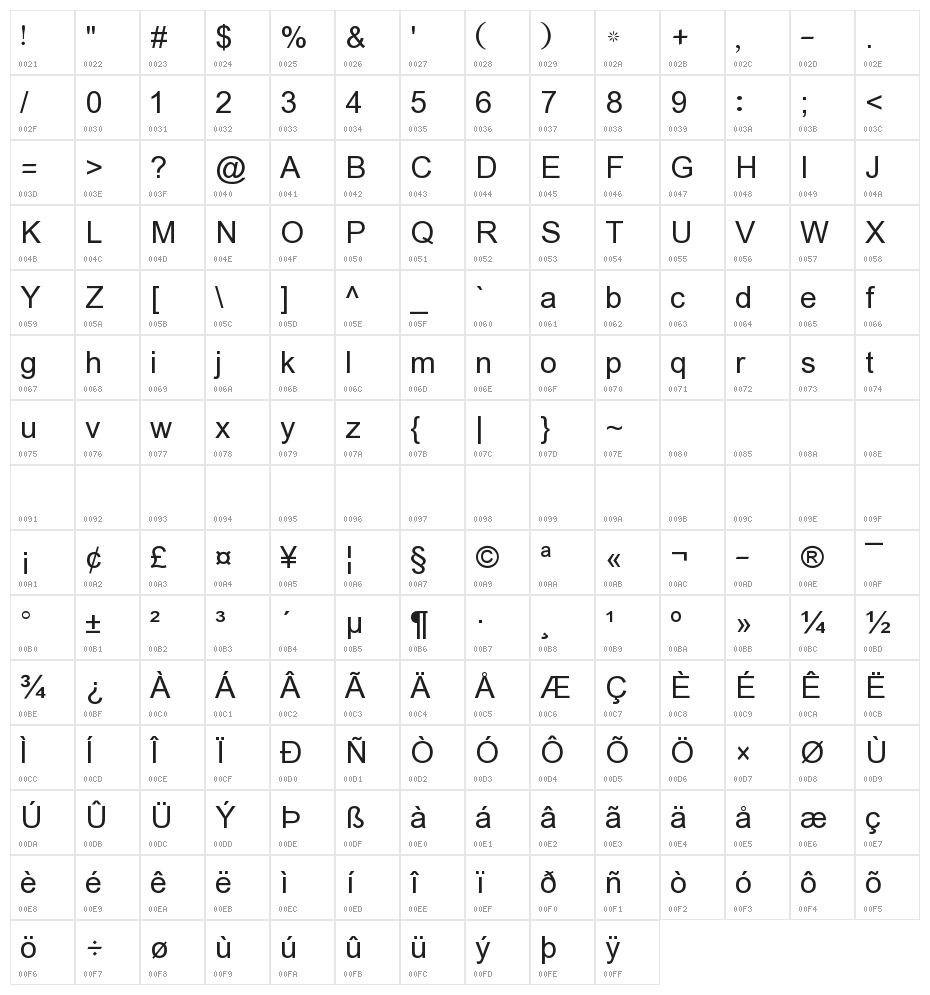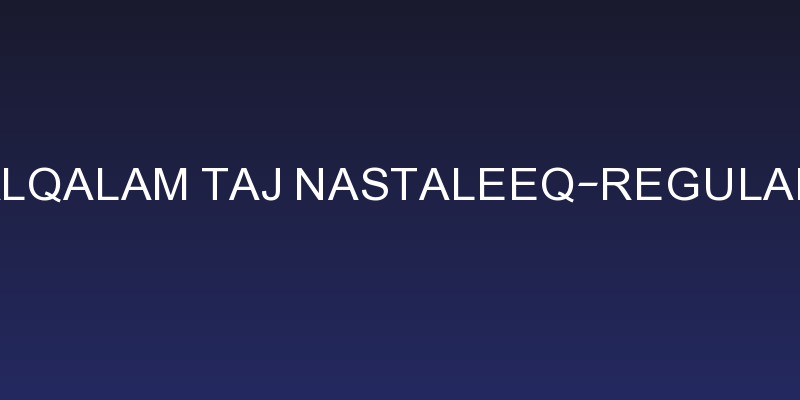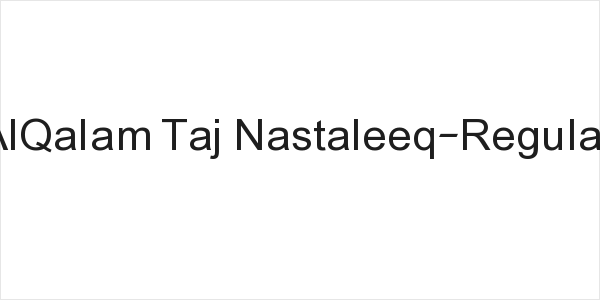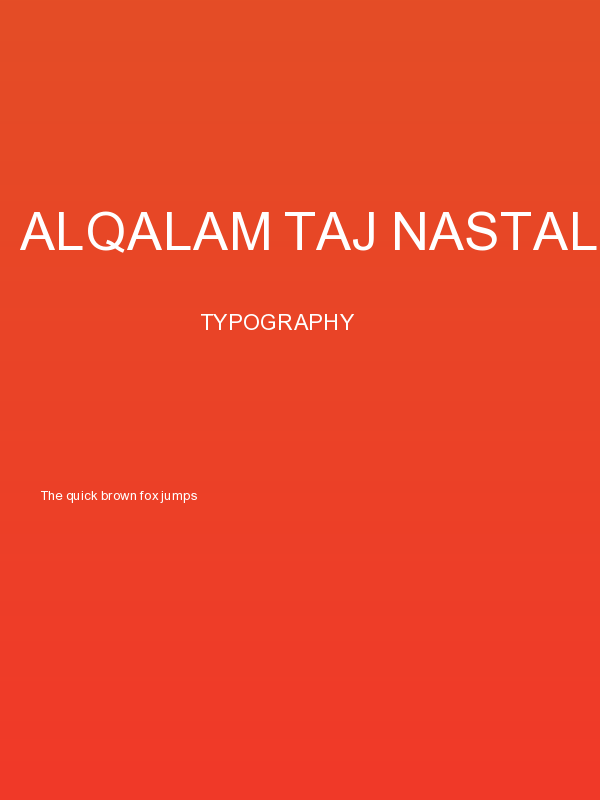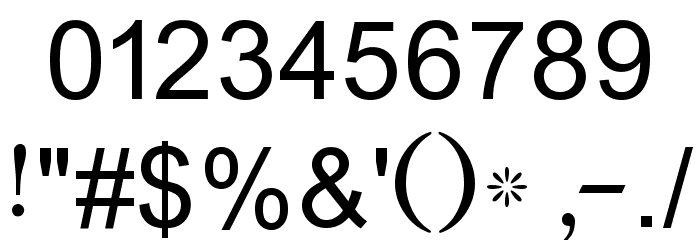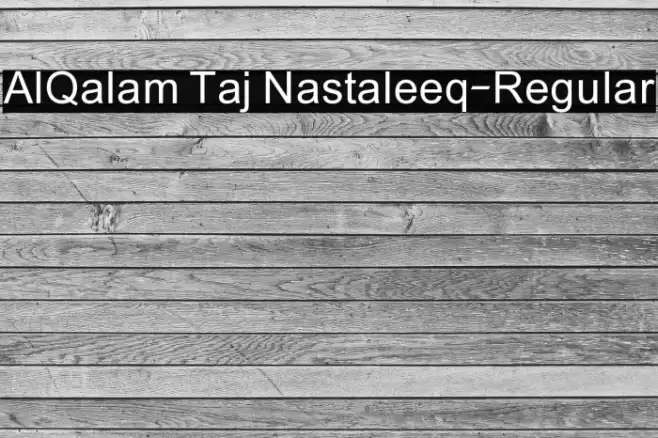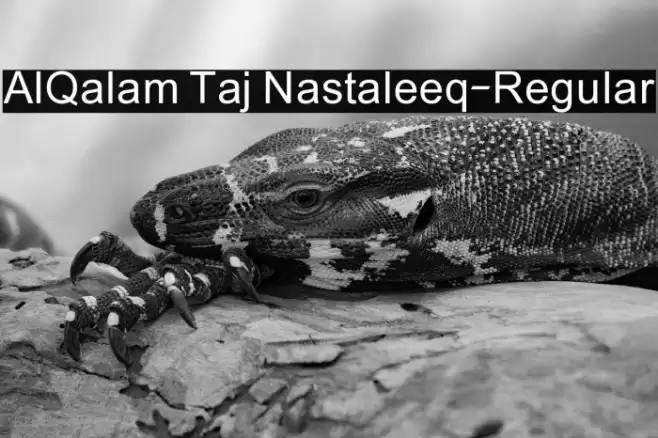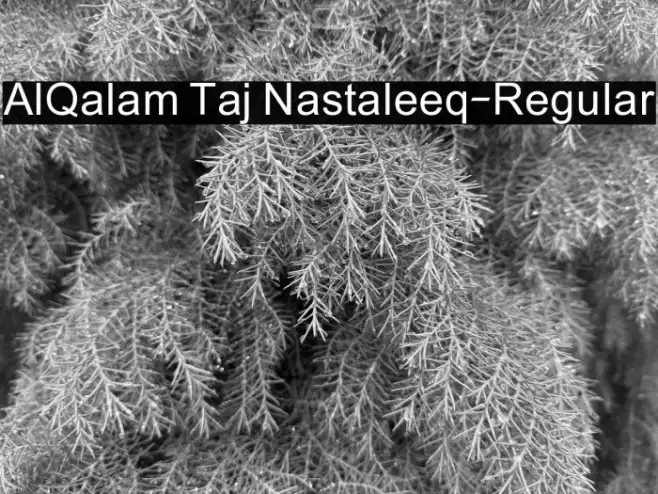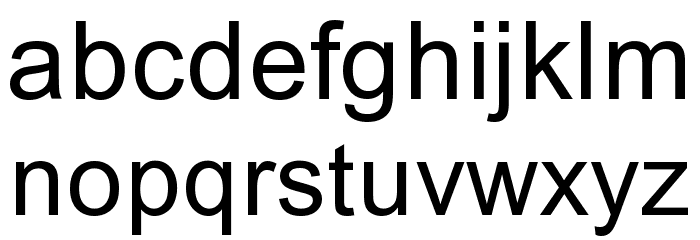
AlQalam Taj Nastaleeq-Regular Font
AlQalam Taj Nastaleeq-Regular Description
This font features a clean and modern sans-serif design with uniform stroke widths, providing a sleek and professional appearance. The uppercase and lowercase letters are well-proportioned, offering excellent readability. The numerals are clear and distinct, making them suitable for various applications. The special characters are straightforward and match the overall aesthetic, ensuring consistency across different uses. This font's simplicity and clarity make it versatile for both digital and print media.
| Use Case | Headlines, Body text, Logos |
| Proposed Projects | Ideal for corporate branding, website design, user interfaces, and print media such as brochures and flyers. |